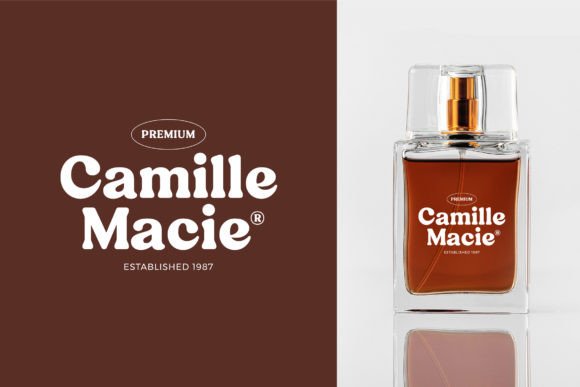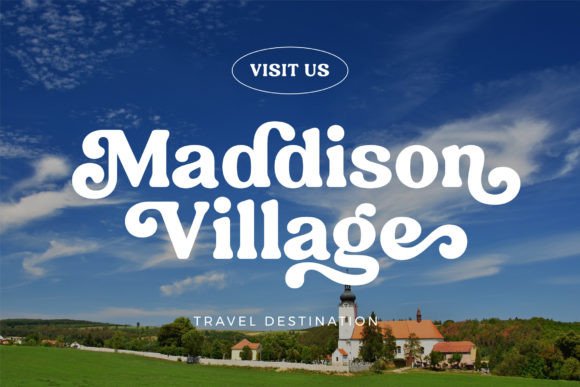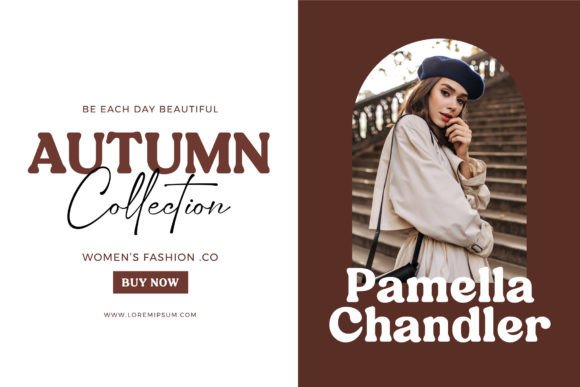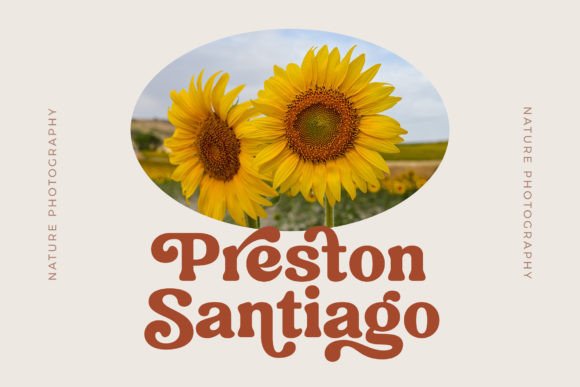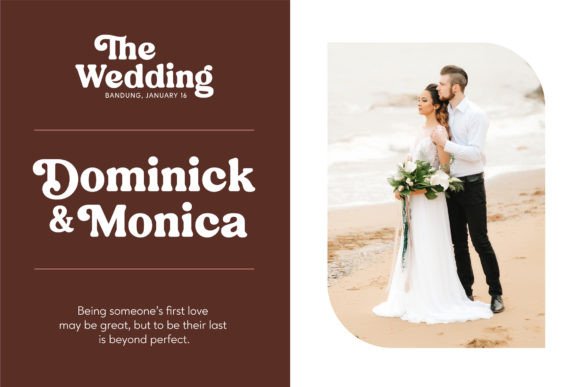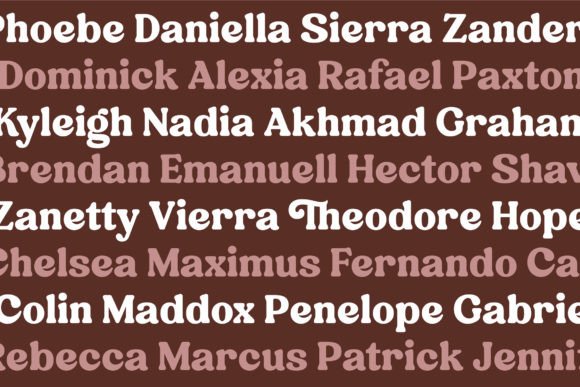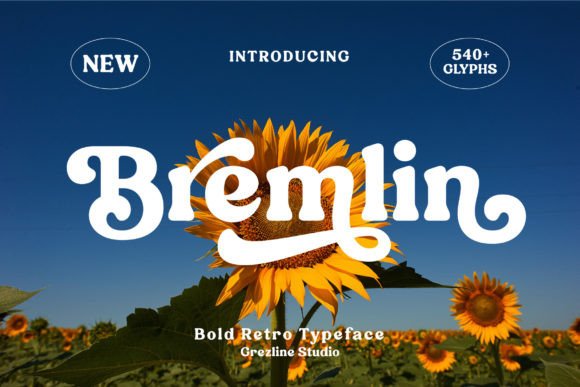
Introducing Bremlin Font: The Ultimate Retro Groove for Your Designs
Are you a designer or crafter looking for a font that embodies the spirit of retro and vintage designs? Look no further than Bremlin Font! This bold and eye-catching font is specifically crafted to bring a touch of nostalgia and fun to your creative projects. With its extensive range of alternate glyphs and PUA encoding, Bremlin Font is the perfect match for anyone seeking to add a groovy vibe to their work.
The Characteristics of Bremlin Font
Bremlin Font boasts a unique and bold design that instantly captures attention. Its retro aesthetic is reminiscent of the funky and playful typography of the 60s and 70s, making it an excellent choice for designs that require a vintage flair. The font comes with a plethora of alternate glyphs, allowing you to experiment with different styles and variations to suit your creative vision.
One of the standout features of Bremlin Font is its versatility. This font is not limited to a specific type of project; instead, it can be used across a wide range of applications, including:
• Logos: Create a memorable brand identity with Bremlin Font’s bold and playful style.
• Covers: Add a touch of retro charm to your book covers, magazine covers, or any other type of cover design.
• Posters: Design eye-catching posters for events, promotions, or advertisements with Bremlin Font’s attention-grabbing style.
• Quotes: Add a dash of personality to your quote designs with Bremlin Font’s unique and expressive glyphs.
• Product Packaging: Stand out in the market with Bremlin Font’s bold and playful style on your product packaging.
• Merchandise: Create fun and quirky merchandise, such as t-shirts, mugs, or tote bags, with Bremlin Font’s retro vibe.
• Social Media: Elevate your social media presence with Bremlin Font’s bold and eye-catching style.
Why Choose Bremlin Font?
With so many fonts available, why choose Bremlin Font? Here are just a few reasons:
• Unique Style: Bremlin Font offers a distinctive retro style that’s sure to make your designs stand out.
• High Versatility: This font can be used across a wide range of projects, making it a valuable addition to your font library.
• Great for Crafters: Bremlin Font is perfect for crafters who want to add a personal touch to their DIY projects, such as handmade cards, scrapbooking, or iron-on designs.
Bremlin Font is an exceptional addition to any designer’s or crafter’s toolkit. Its bold retro style, extensive range of alternate glyphs, and PUA encoding make it the perfect choice for anyone looking to add a touch of nostalgia and fun to their creative projects. Whether you’re designing logos, posters, or merchandise, Bremlin Font is sure to bring a unique and eye-catching vibe to your work. So why wait? Get creative with Bremlin Font today and take your designs to the next level!